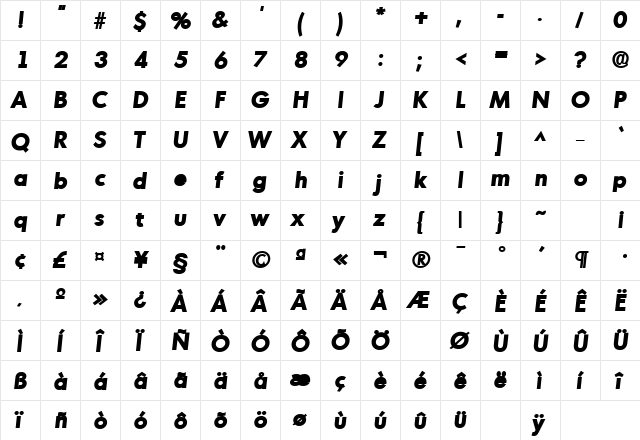
MontrealLH Bold Italic Font Preview
Design Context for MontrealLH Typeface
MontrealLH takes a measured approach to typography — its balanced proportions and neutral character make it a reliable workhorse for both digital and print work. The dynamic lean of this cut emphasises speed and emphasis in any layout. Its bold stroke weight gives it real presence on the page.